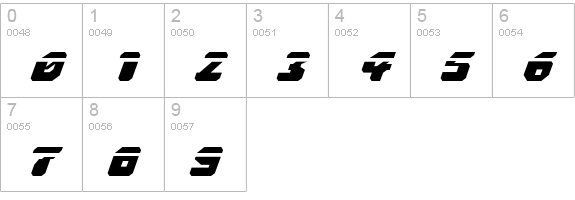
Astropolis Laser Italic is a distinctive, italic variant in the Astropolis typeface family \xE2\x80\x94 well suited to design and typography projects.
Astropolis Laser Italic font is a sleek and futuristic typeface that exudes a sense of modernity and sophistication. Its sharp, laser-cut design gives it a unique and edgy look that is perfect for projects that require a bold and contemporary aesthetic. The italicized style adds a touch of elegance and dynamism to any text, making it stand out with a sense of flair. What makes Astropolis Laser Italic font even more appealing is that it is available for free download at FontsMarket.com. This means that you can easily access this stylish typeface without any cost, allowing you to elevate your design projects without breaking the bank. Whether you're working on branding, editorial design, or digital content, Astropolis Laser Italic font is sure to make a statement and leave a lasting impression on your audience.